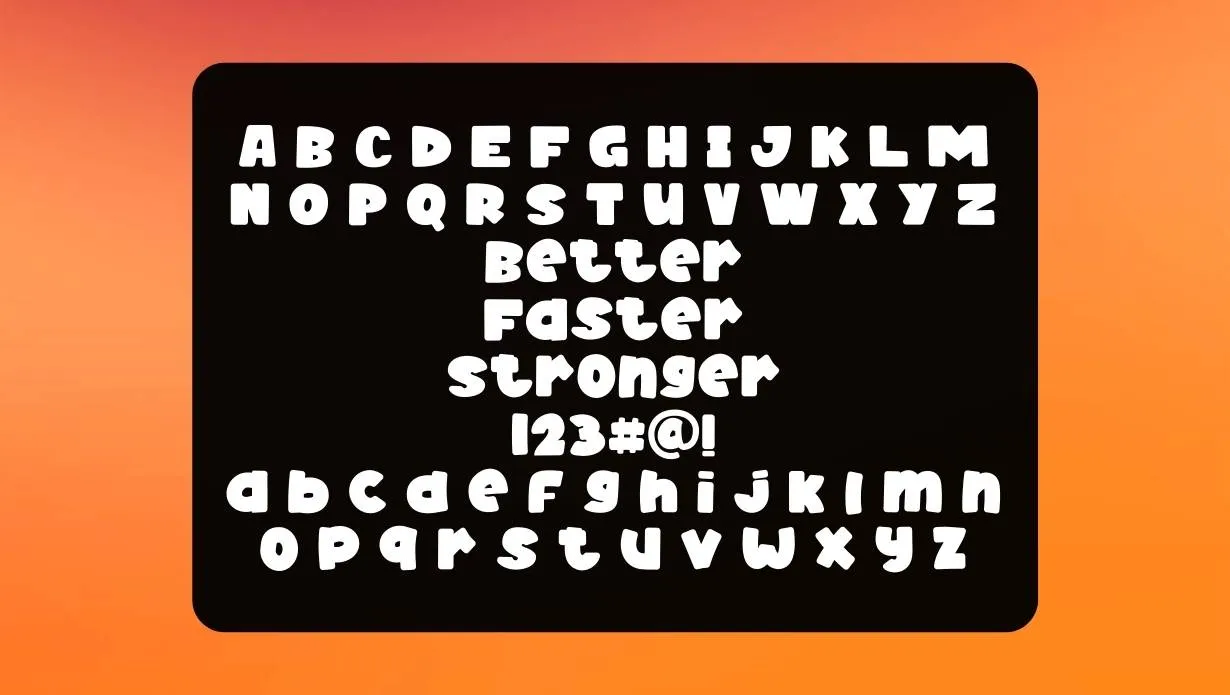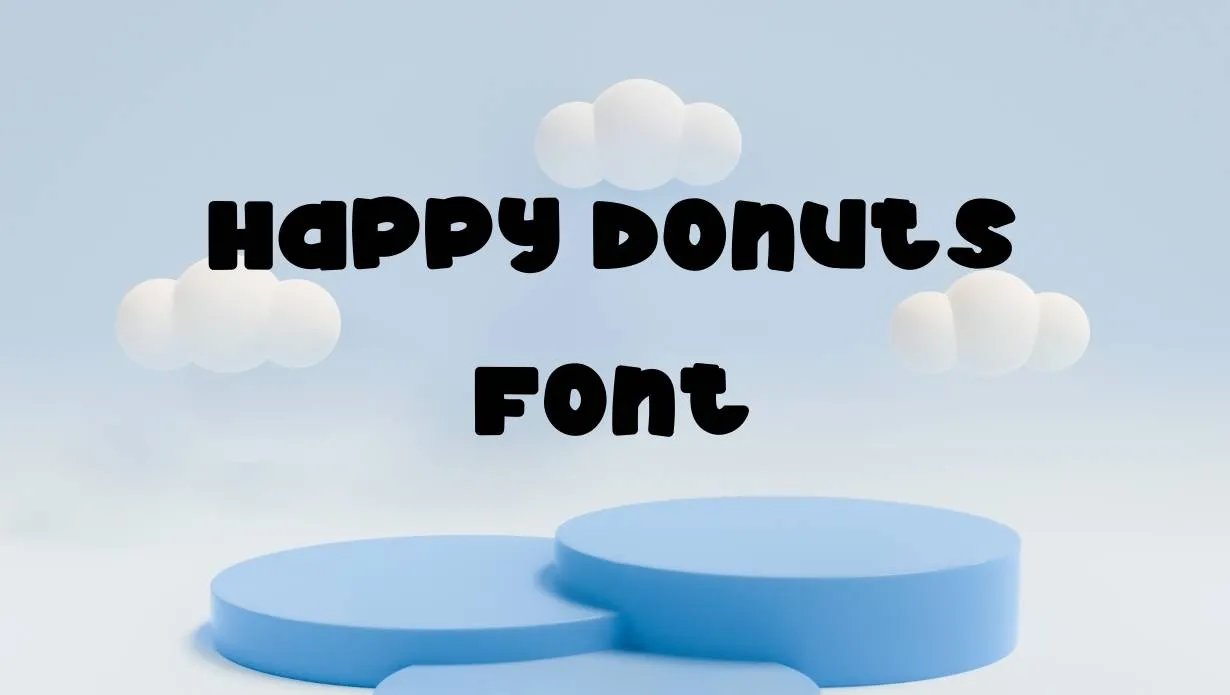
Happy Donuts Font is a creative and fancy typeface design that falls into the Fancy category. This amazing typeface design was developed by a famous studio Letterena Studios, who was famous for its creativity.
It has 236 glyphs that contains alphabetical characters include ascenders, descenders, punctuations, numbers, and alternates. This is a great option for those looking for a clean, modern typeface with excellent readability.
Use of Happy Donuts Font
You can easily utilize this fancy bold style typeface to create attractive logo designs. Otherwise, it also good to use in banners, posters, wallpaper designs, flyers, book covers, pamphlets and many more.
Happy Donuts Font View On Image Designs